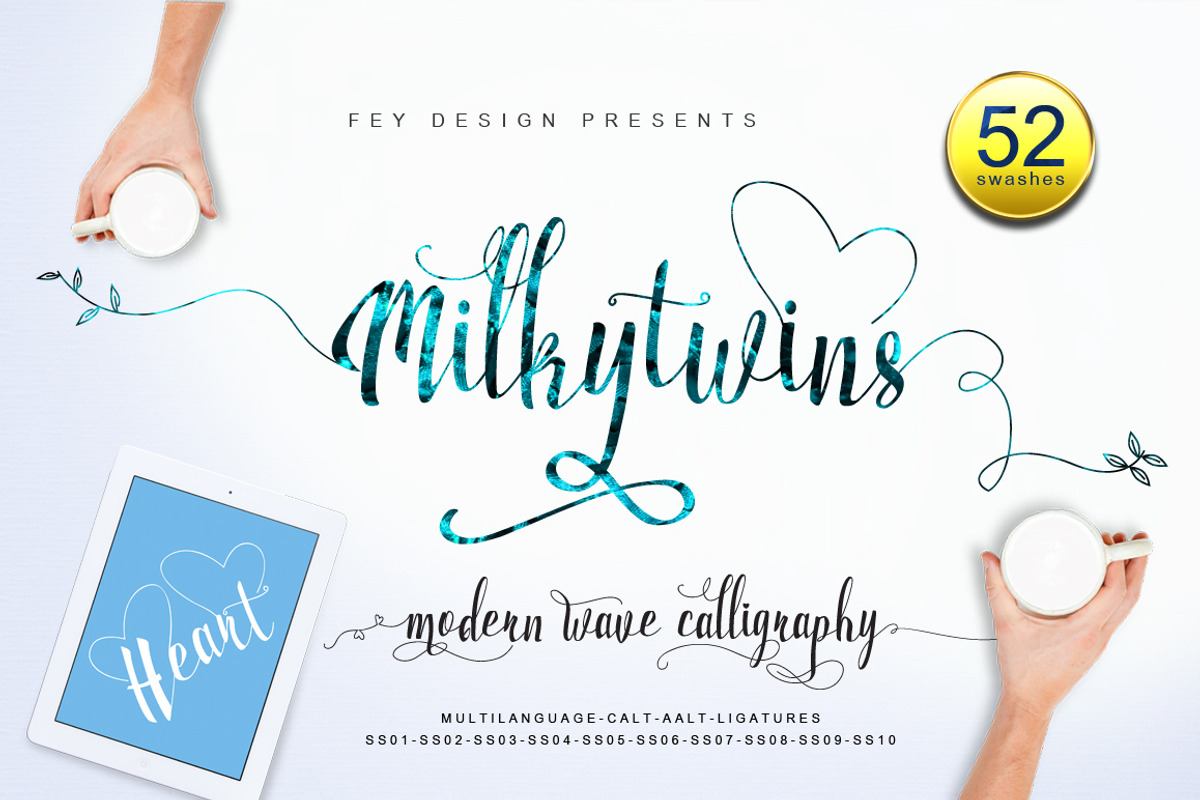
Milkytwins Modern Wave Calligraphy Free Download is a graceful and playful script font that flows like a soft breeze across your designs. With its modern wave-style calligraphy, this font is perfect for wedding invitations, branding, greeting cards, Instagram quotes, and feminine product packaging.
The elegant curves and rhythmic letterforms bring a personal, handwritten charm to any project. Whether you're creating a romantic logo, stylish stationery, or aesthetic blog visuals, Milkytwins adds a touch of sweetness and sophistication.
Designers love Milkytwins for its perfect blend of elegance and approachability, making it ideal for both digital and print creations. Want to give your typography a gentle, luxurious vibe? Download Milkytwins Modern Wave Calligraphy Free Download and let your designs dance with modern script beauty.